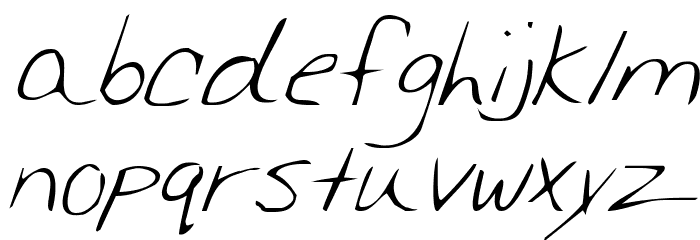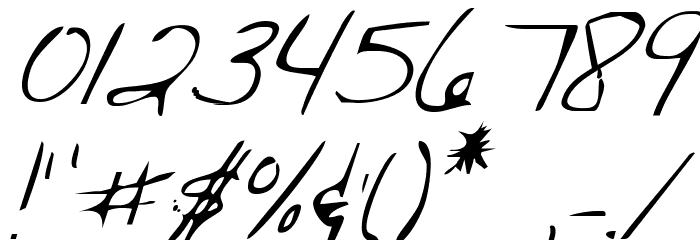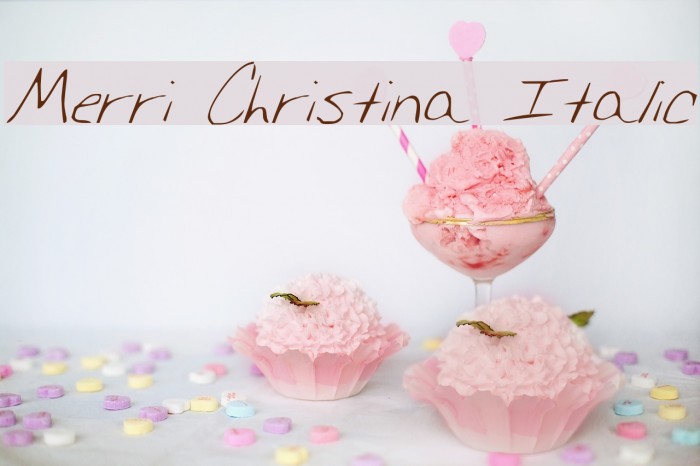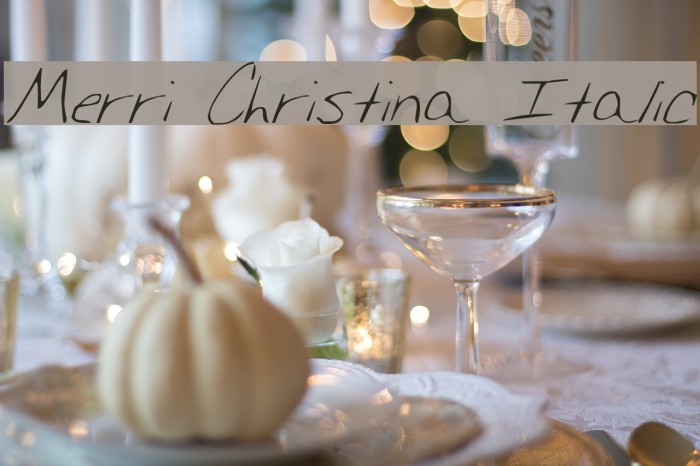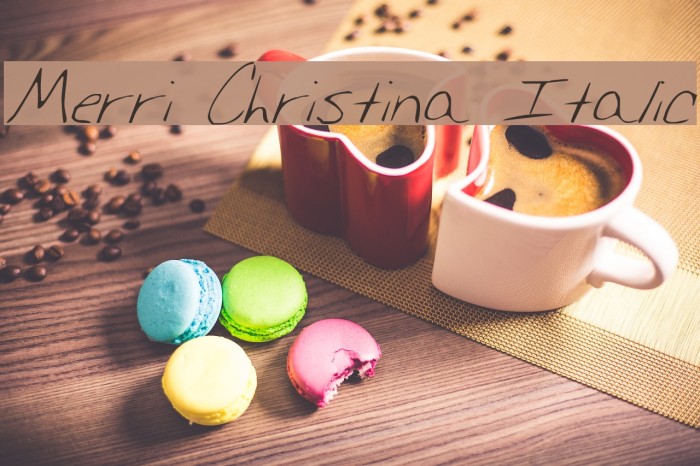
Merri Christina Italic Font
This font features a dynamic and fluid handwritten style, characterized by its elegant and flowing letterforms. The strokes are smooth and slightly slanted, giving it an italic appearance that enhances its graceful and personal touch. The uppercase letters maintain a consistent height, while the lowercase letters exhibit a playful yet sophisticated variation in size and shape. The numerals are clear and legible, matching the overall aesthetic of the alphabet. Special characters are crafted with the same attention to detail, ensuring a cohesive look across all glyphs. This font exudes a sense of creativity and individuality, making it suitable for projects that require a personal or artistic flair.
A fluid, handwritten italic font with elegant and flowing letterforms.
- Proposed Projects: Ideal for personal invitations, artistic branding, creative posters, and expressive social media graphics.
- Use Case: Logos, Headlines, Artistic projects